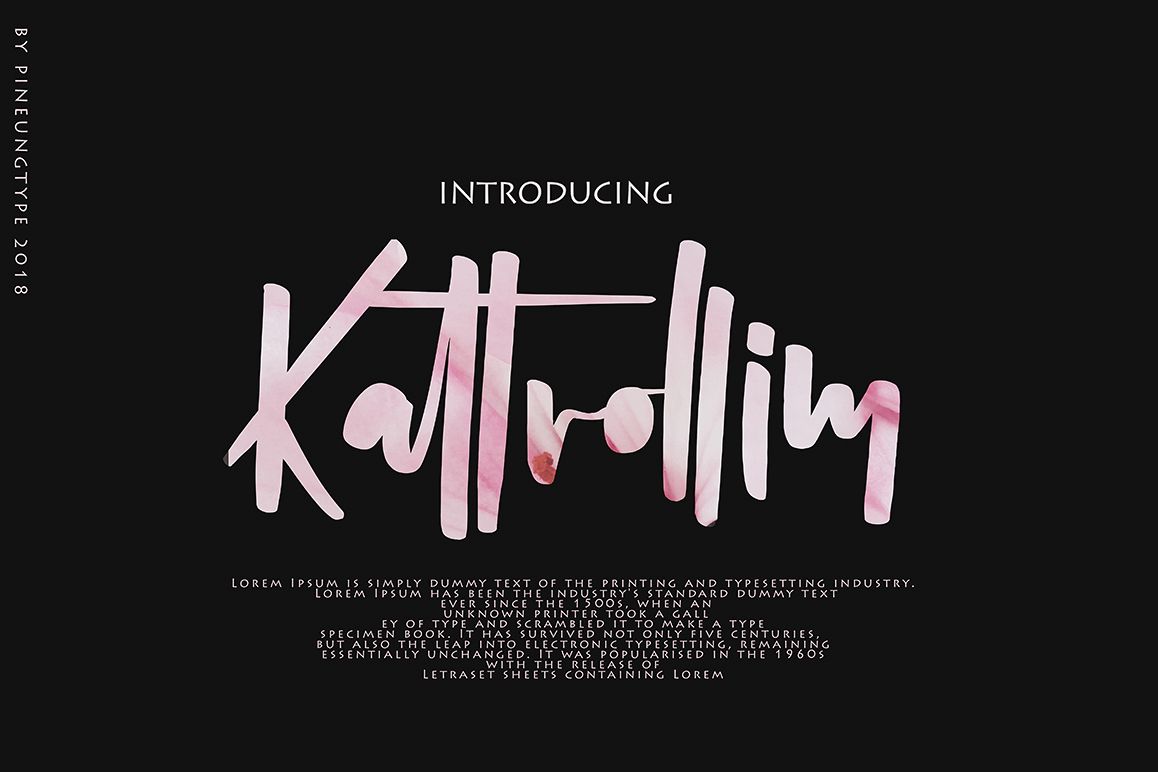
Kattrolim
Kattrolim script font with modern style, this font will perfect for many different project ex: quotes, logo, blog header, poster, banding, fashion, apparel, letter, invitation, stationery, etc...